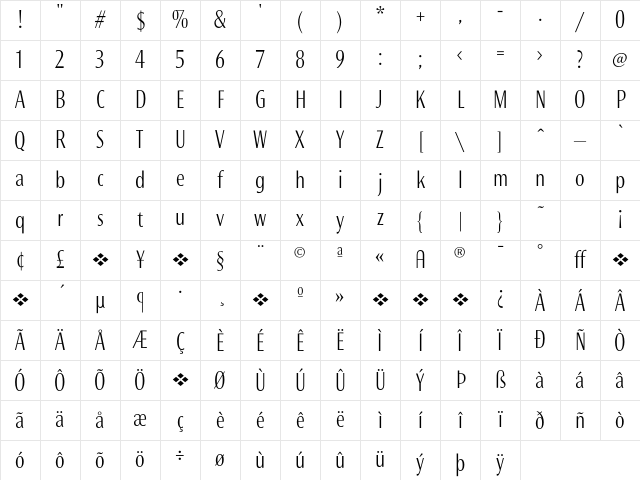
Roxy Light
Design Context for Roxy
Roxy is a composed and adaptable typeface that performs quietly and consistently across a wide range of design contexts. Its slender proportions lend an understated elegance to any composition.